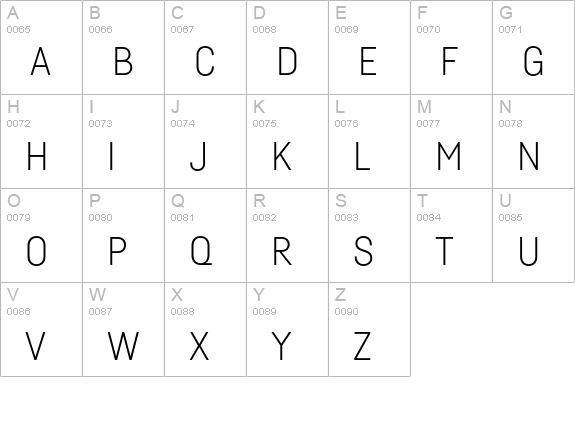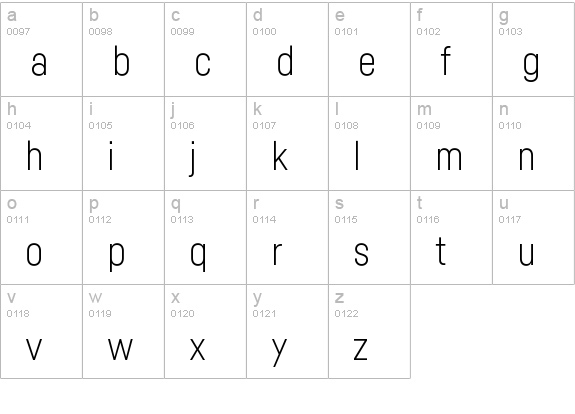
Fabrikat Light is a refined, elegant variant in the Fabrikat typeface family \xE2\x80\x94 well suited to elegant body text, refined sub-headings, and luxury branding.